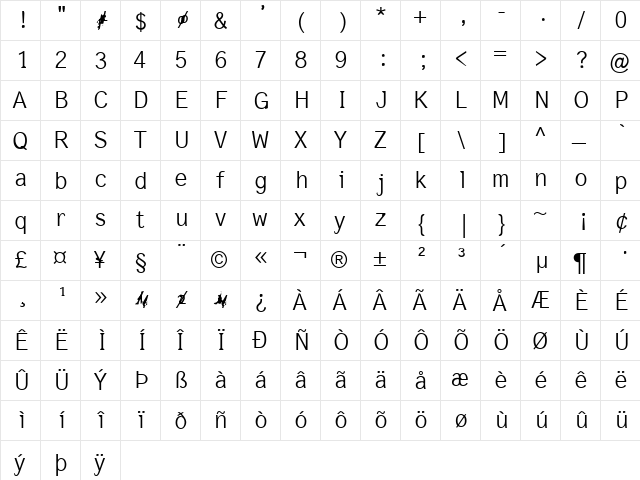
Ressurection Regular
Design Context for Ressurection Typeface
Ressurection takes a measured approach to typography — its balanced proportions and neutral character make it a reliable workhorse for both digital and print work.